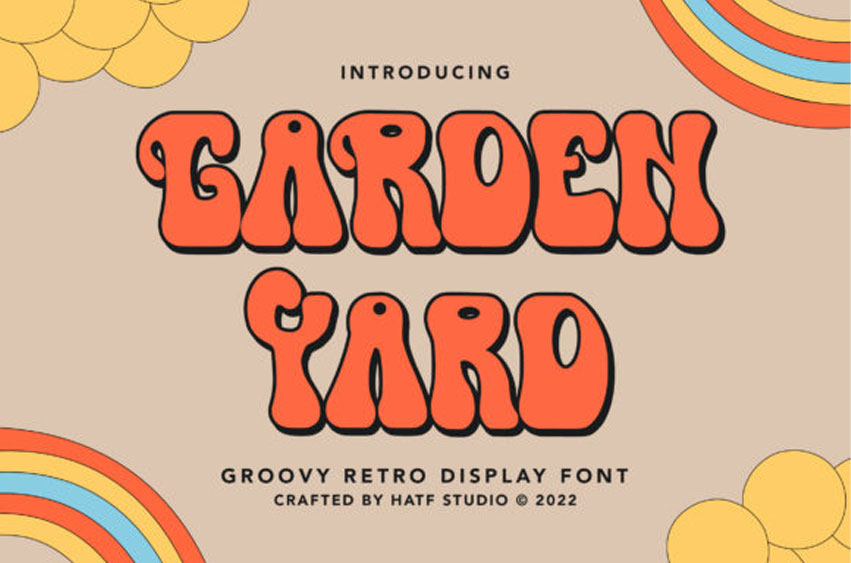
Garden Yard Font Groovy Retro Display Font is a font with distinctive handwritten characters perfect for branding projects, logos, wedding designs, media posts, advertisements, product packaging, product designs, labels, photography, watermarks, invitations, stationery, and any project who need handwritten dishes.